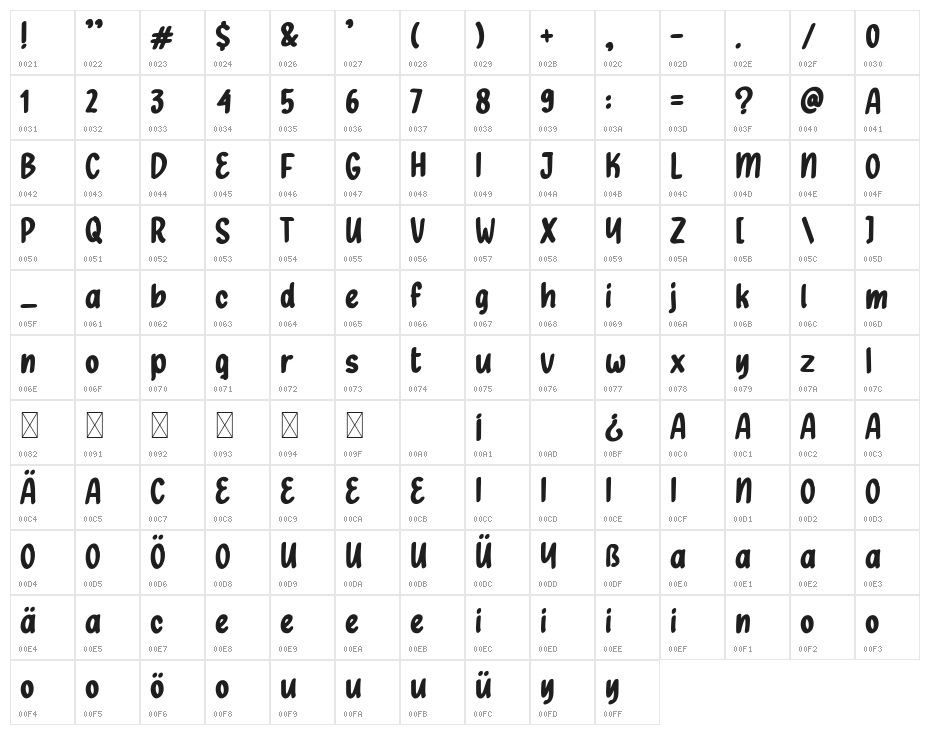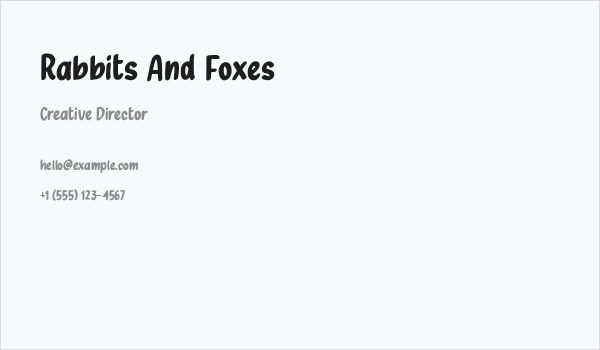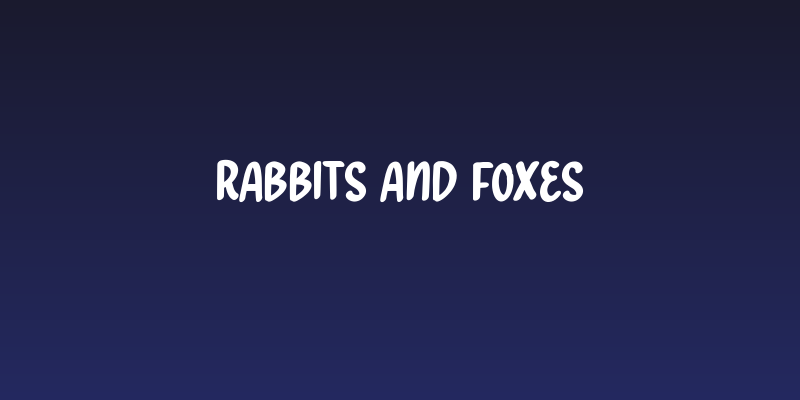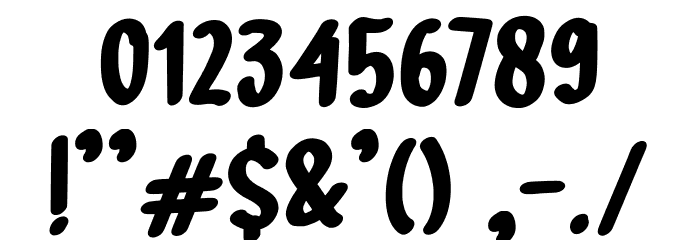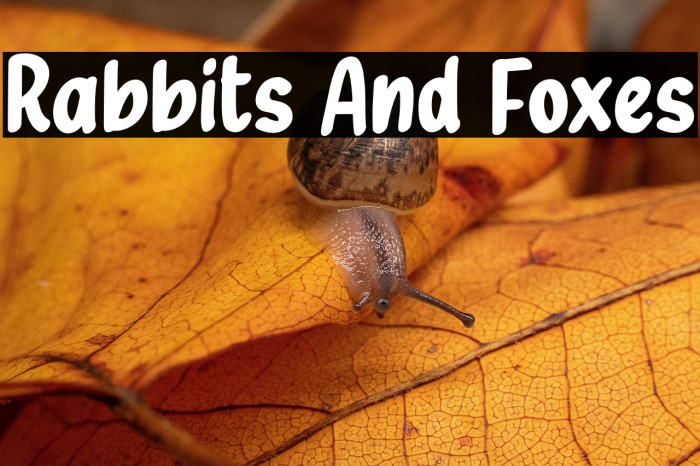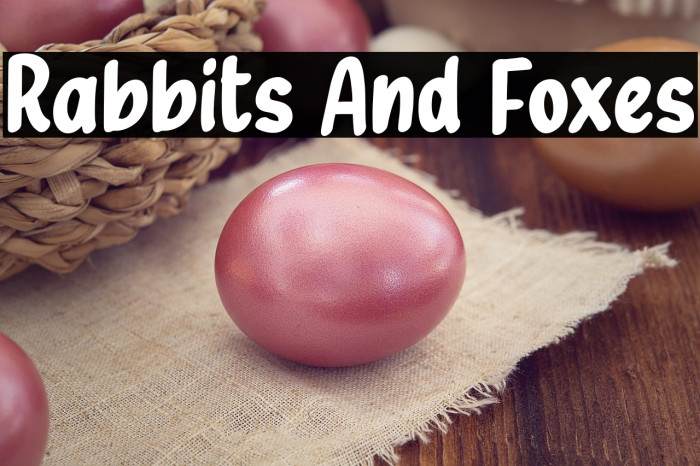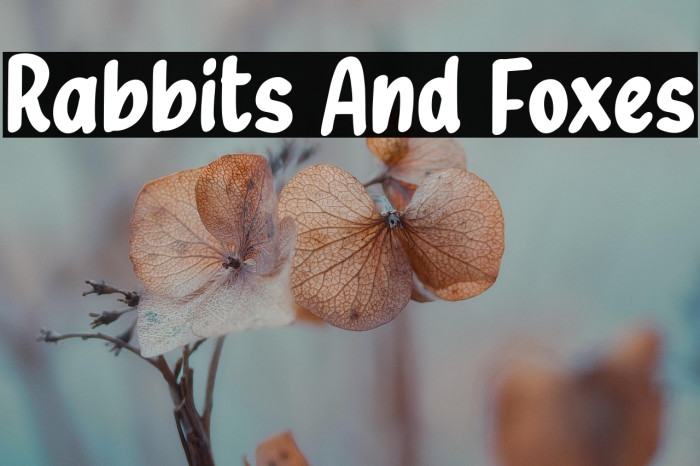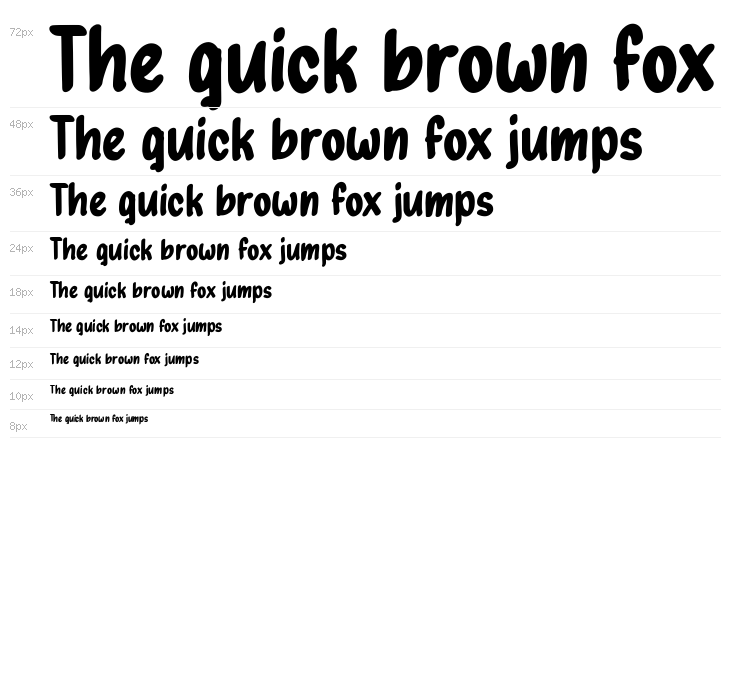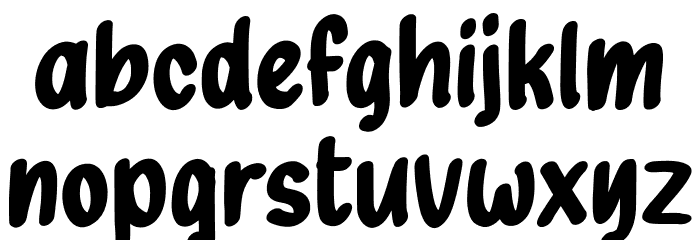
Rabbits And Foxes Font
Rabbits And Foxes Description
This playful and bold font features rounded, hand-drawn characters that exude a sense of fun and creativity. The letters are thick and slightly irregular, giving them a casual, informal appearance. The uppercase and lowercase letters maintain a consistent style, with smooth curves and a friendly demeanor. Numbers and special characters are equally bold and well-integrated, ensuring readability and cohesion across different uses. The font's overall look is approachable and lively, making it ideal for projects that require a touch of whimsy and personality.